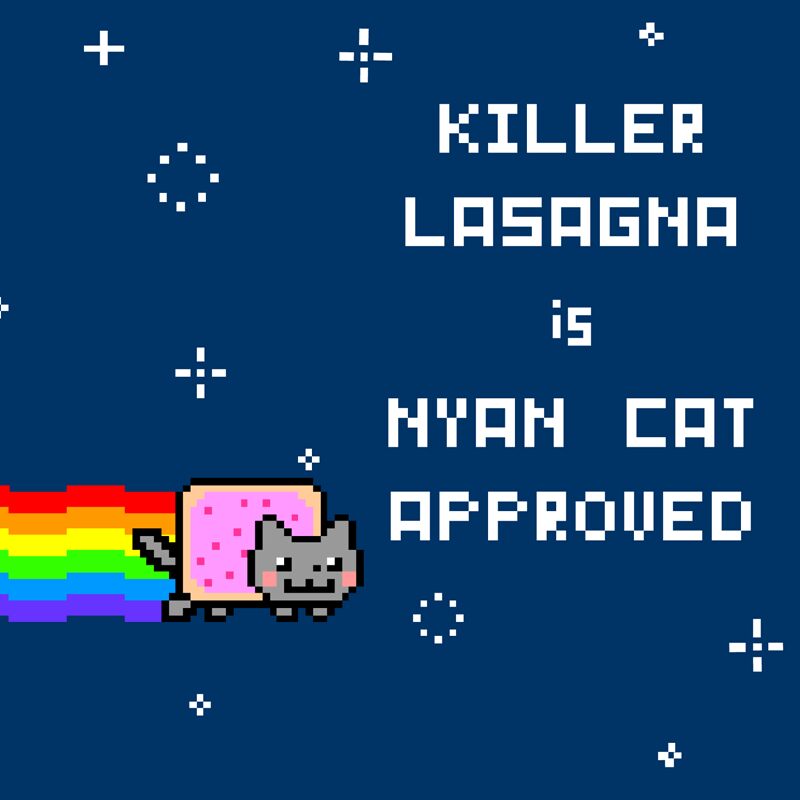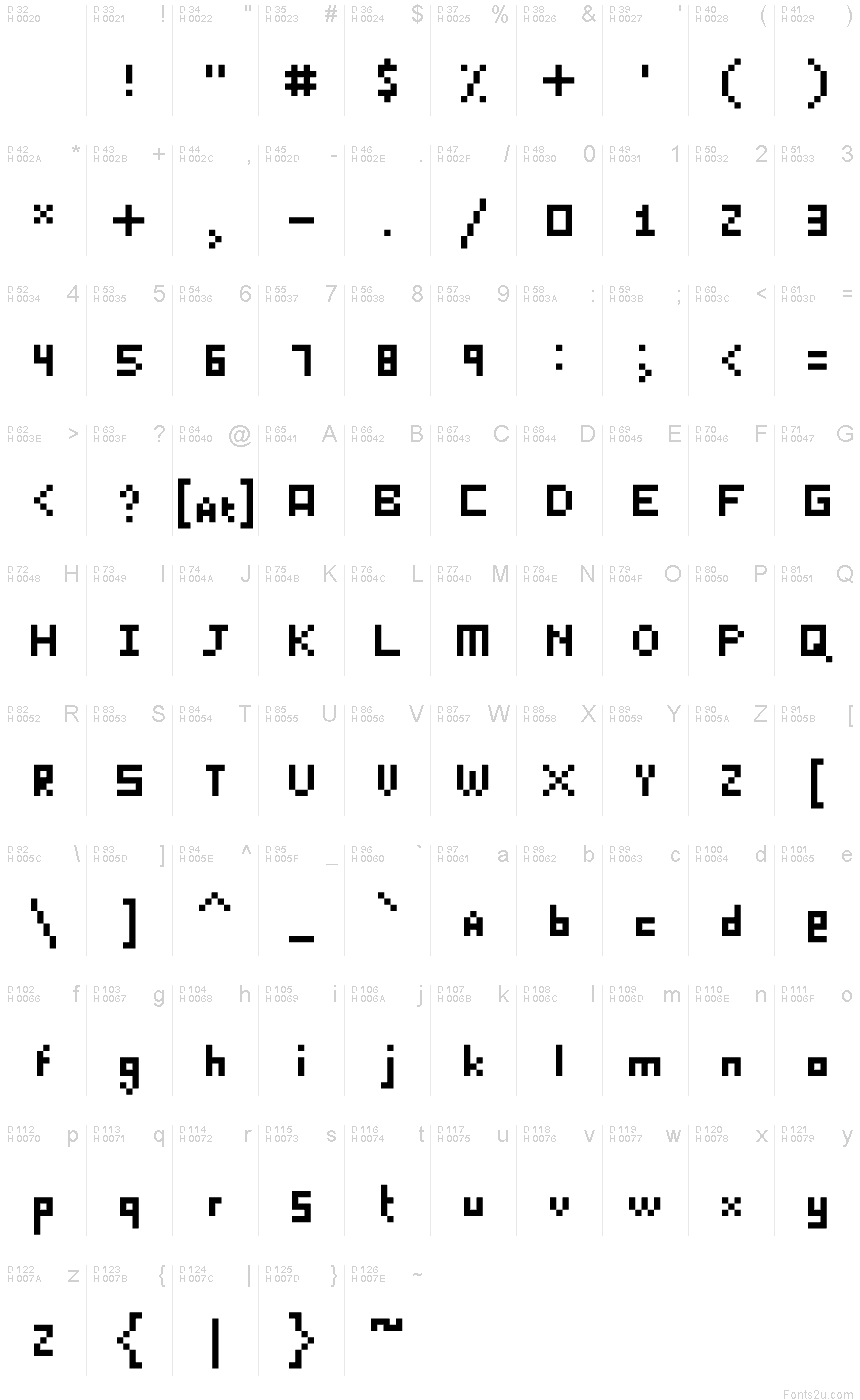
KILLER LASAGNA Regular
Hi! My name is Matt Bruinooge. Thanks for checking out my typeface. Killer Lasagna was the first font I ever created. In case you're wondering, "Killer Lasagna" comes from a Marge Simpson. It was the weirdest name for a font I could think of at the time.